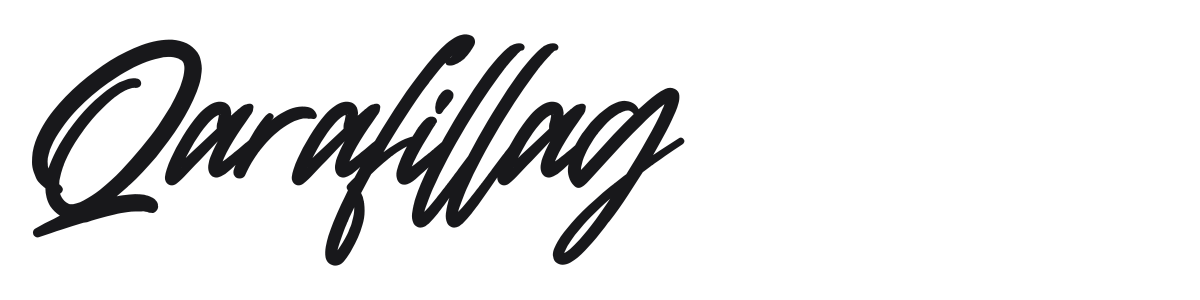
Qarafillag
Qarafillag is an authentic brush script that captures the energy of fast, ink-loaded calligraphy with thick swelling downstrokes and razor-thin upstrokes. The letters lean hard into a dynamic slant and carry real texture, pooled ink, and stroke variation that give it genuine handcrafted character. It works at headline and logo scales where its raw expressiveness can breathe.